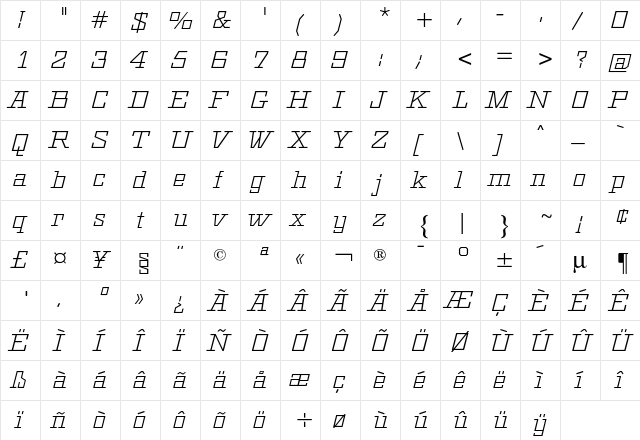
Geometric CG Light Italic Font Preview
Design Context for Geometric CG Light Typeface
Geometric CG Light offers clean, dependable letterforms without strong stylistic allegiance, making it a practical choice for designers who need flexibility. The slanted form adds forward momentum and visual energy. The delicate stroke weight brings airiness and refinement to layouts.
Pro Tip: Try Geometric CG Light for annotation and caption copy alongside an upright companion — the contrast in angle creates a dynamic but ordered typographic system.